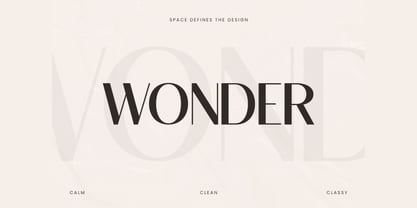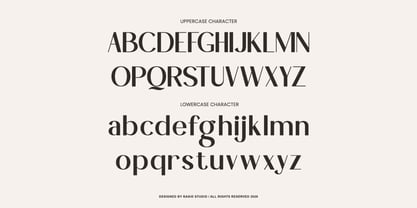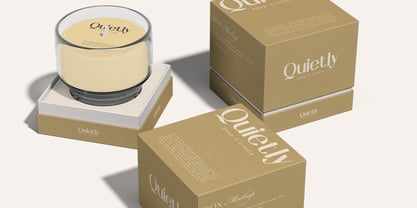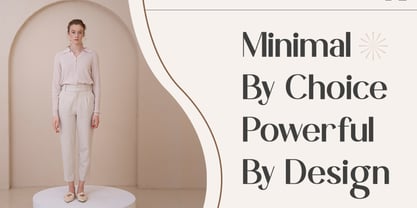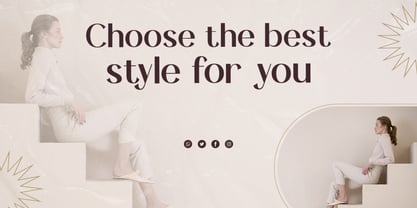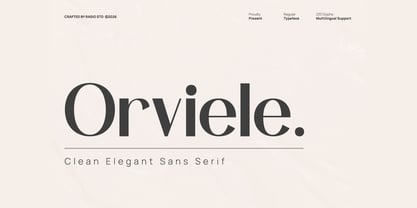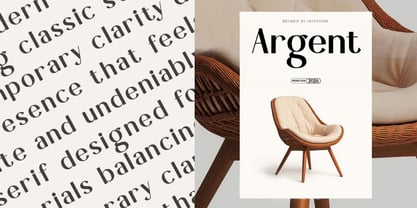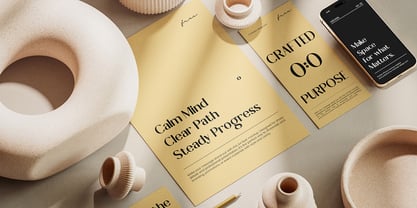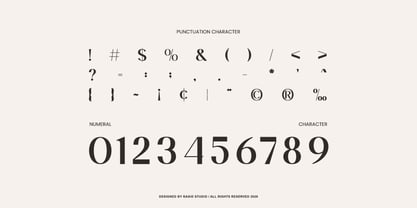
Orviele
by Rasio Studio
The Orviele Font Family was designed by Fajar Indra and published by Rasio Studio. Orviele contains 1 styles. More about this family
Orviele Clean Elegant Sans Serif presents a refined and contemporary typeface built with smooth curves, balanced proportions, and subtle contrast for a sophisticated visual tone. The font includes uppercase, lowercase, numerals, and punctuation with, offering versatility across various design needs. Relevance and Use Cases is perfect for branding design, corporate identity systems, fashion editorials, modern websites, UI/UX interfaces, startup presentations, digital products, advertising campaigns, portfolio layouts, social media branding, luxury packaging, and professional print materials that require a clean, elegant, and contemporary typographic presence.
Designers: Fajar Indra
Foundry: Rasio Studio